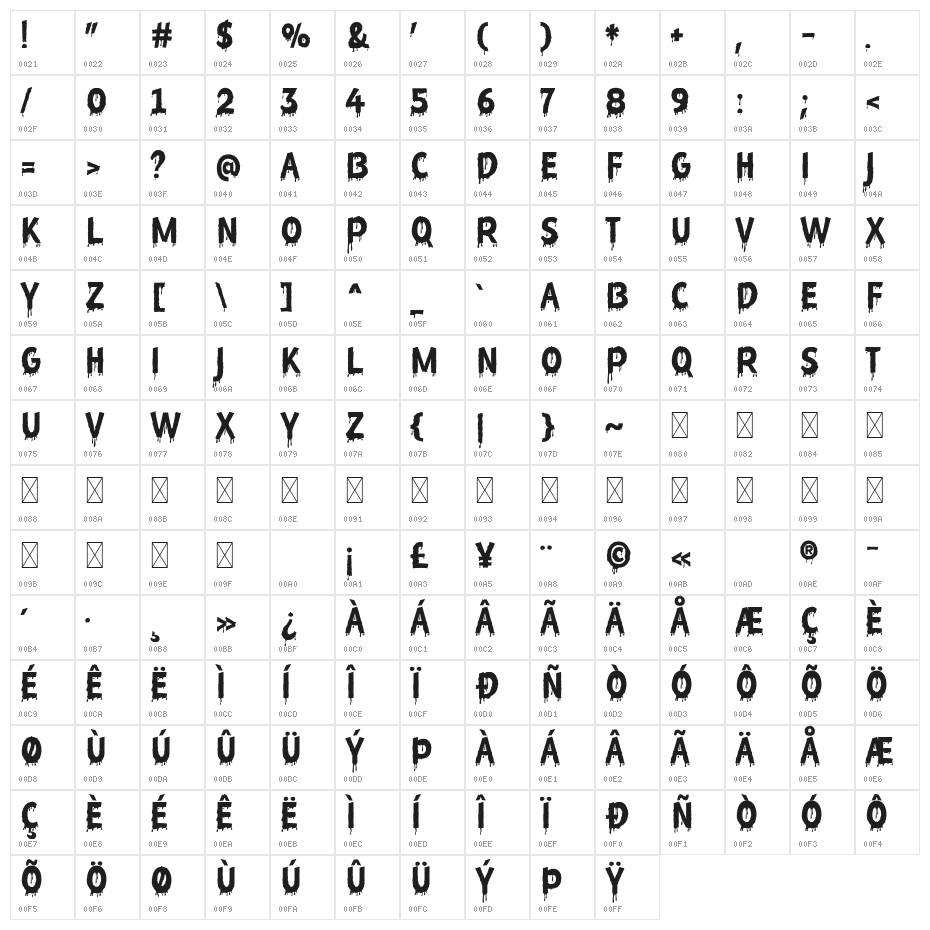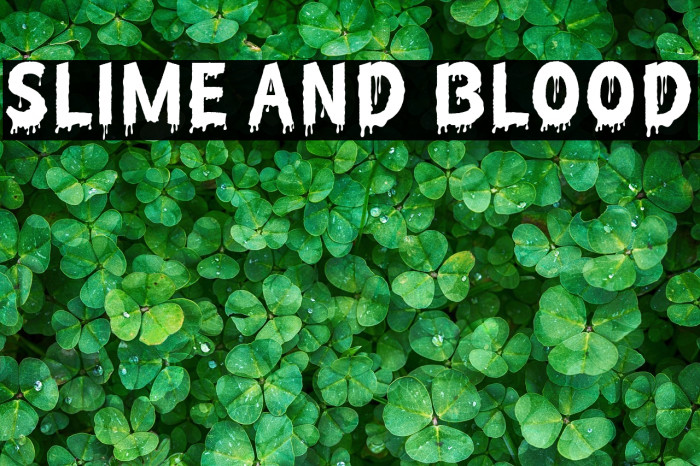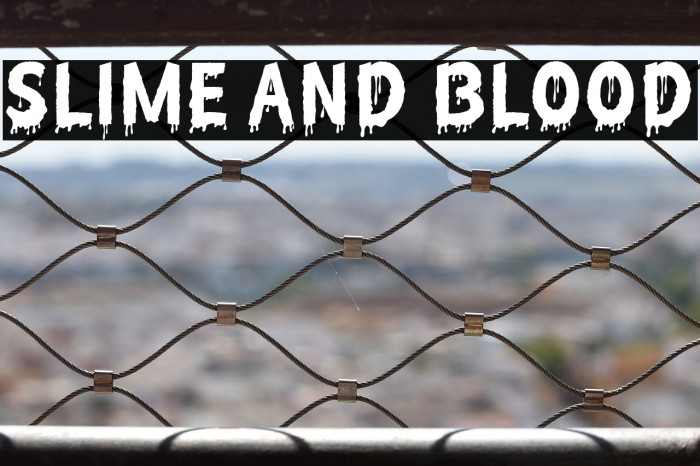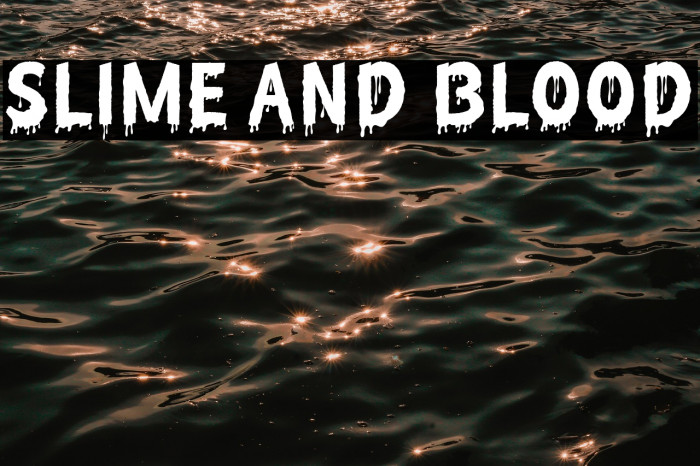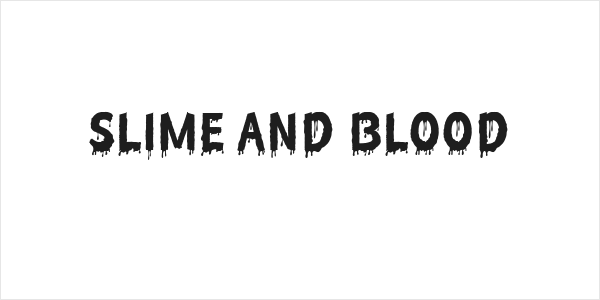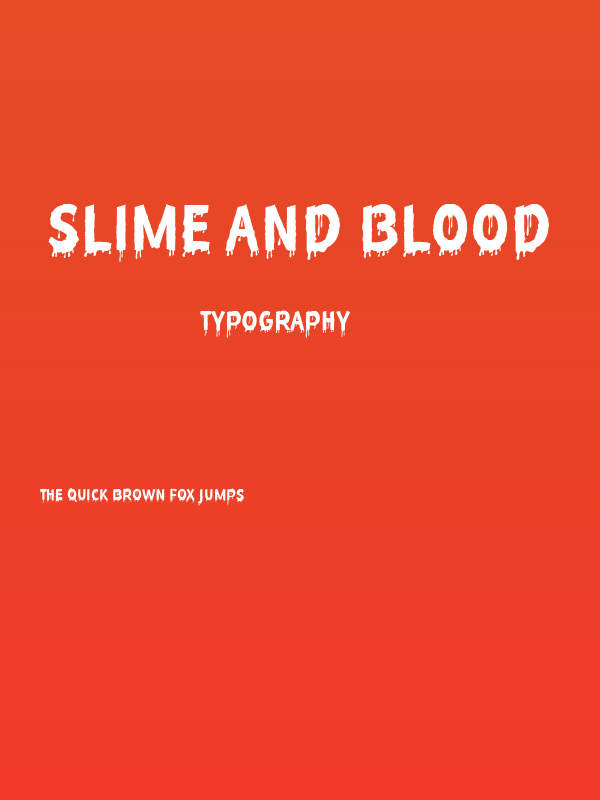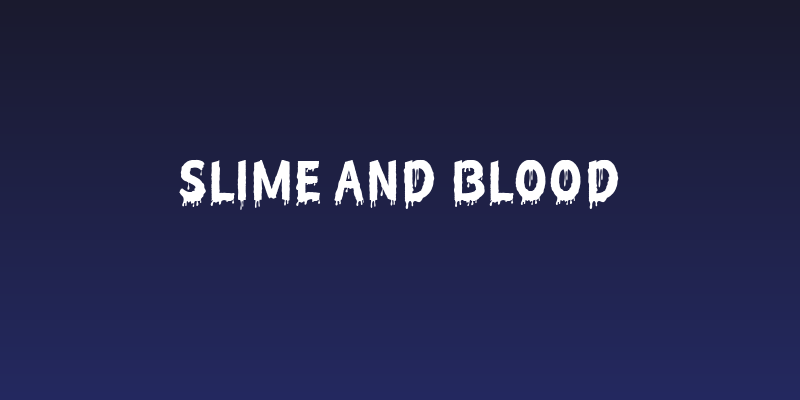
Slime and Blood Font
Slime and Blood Description
This font features a unique and eye-catching design with a dripping effect that resembles slime or blood. Each character appears as if it is melting or oozing, creating a visually striking and somewhat eerie appearance. The bold and thick strokes enhance the dramatic effect, making it ideal for themes related to horror, Halloween, or anything requiring a spooky or unconventional look. The uppercase letters, numbers, and special characters all maintain this consistent dripping motif, ensuring a cohesive and thematic presentation.
| Proposed Projects | Ideal for Halloween-themed posters, horror movie titles, haunted house flyers, and any design needing a creepy or dramatic flair. |